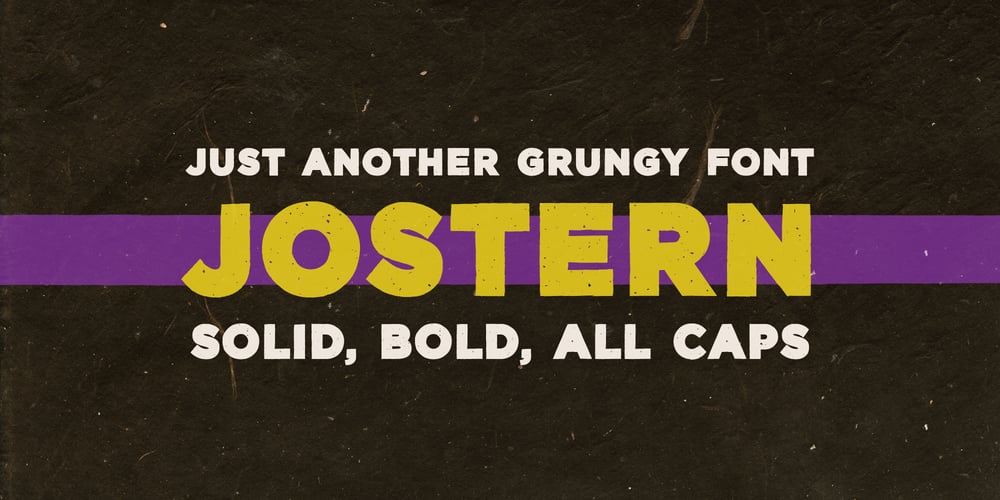
Jostern
Jostern font
Jostern Font Family was designed by Marco Mancia and published by EMME grafica. Jostern contains 1 styles and family package options. Jostern is the first font designed by EMME Grafica. It’s a simple bold, all caps, grunge, eye-catcher font, particularly suitable for titling, branding and typographic amusements.The unevenness of Jostern does not affect the heavy and cubital aspect of the font, but gives it the right roughness to be able to convey a slightly rough and harsh impression, like that of Jos Stern, the bitter character who will be the protagonist of a multimedia project currently under development at EMME Grafica.